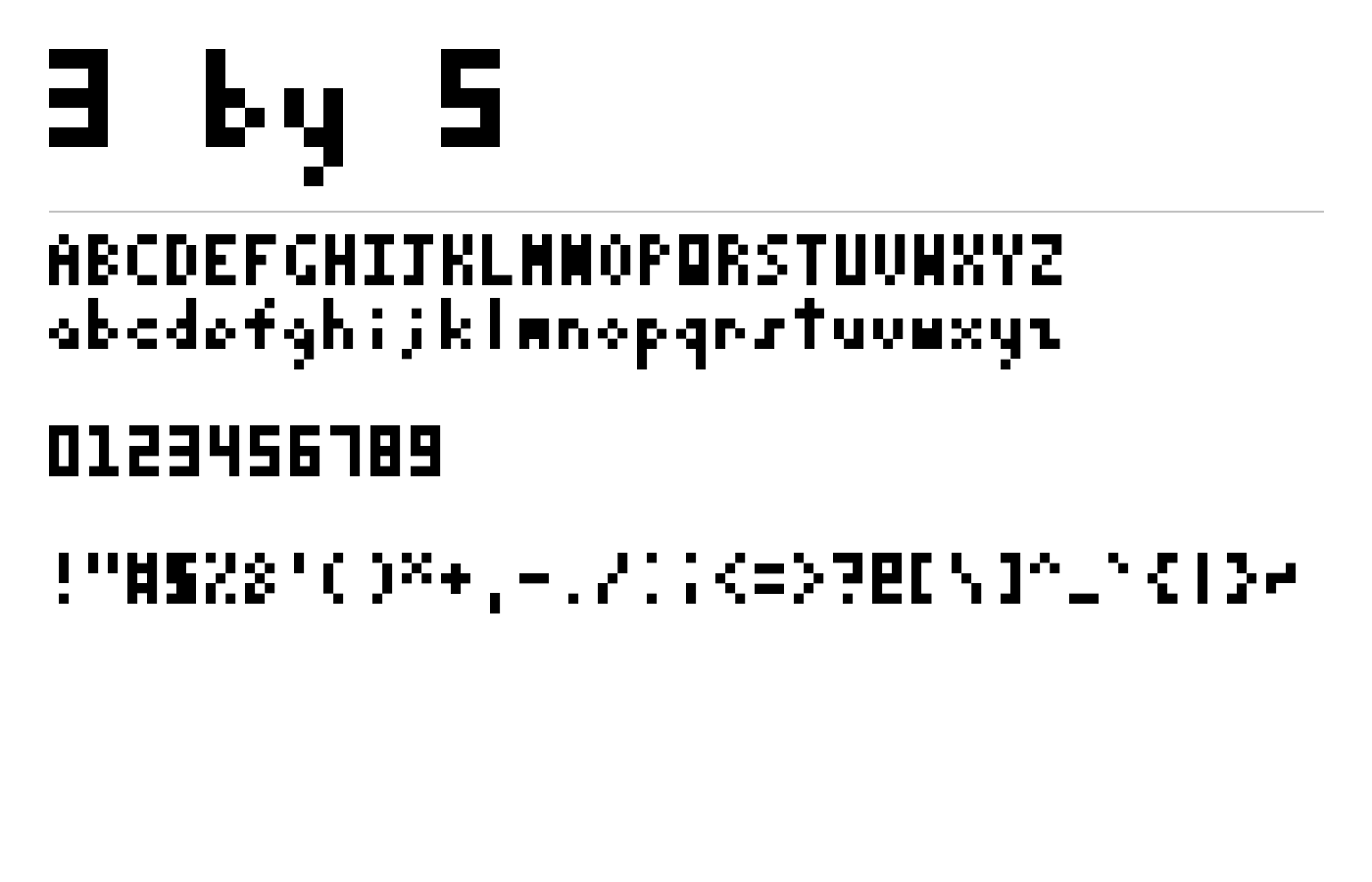
3 by 5 Font is a pixelated, monospaced sans serif typeface with a retro, digital feel reminiscent of early computer screens and video games. Its blocky, grid-like letterforms are highly geometric with a consistent stroke weight, offering clear legibility at small sizes. This font works best for designs seeking a vintage tech vibe, pixel art projects, or digital interface themes, where clarity and nostalgia are key.
3 by 5 Font
About 3 by 5 Font
| Font family | 3 by 5 Font |
| Designer | hakr14 |